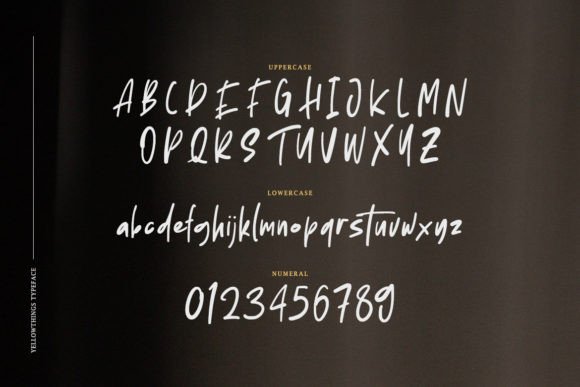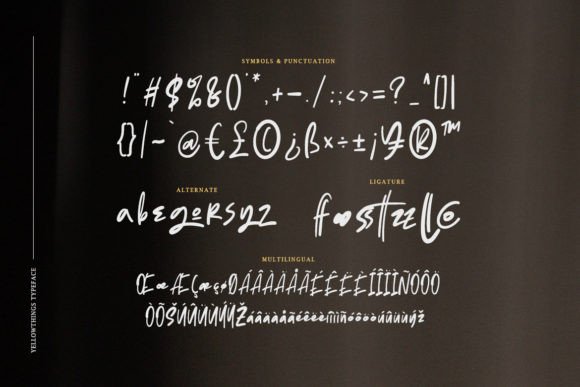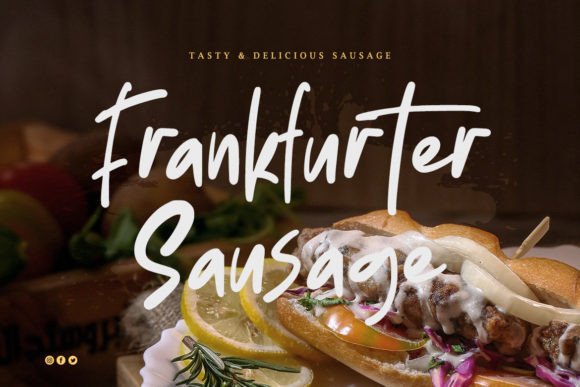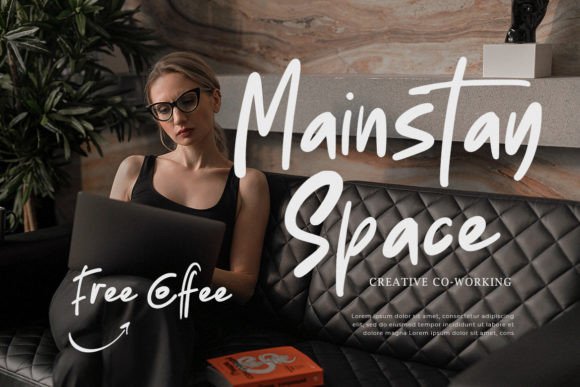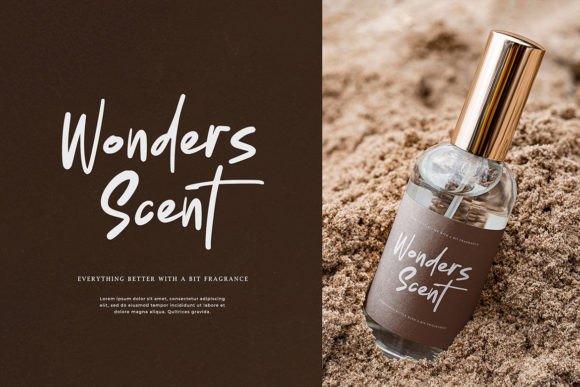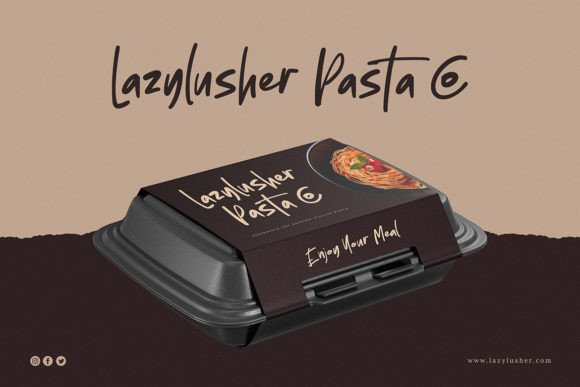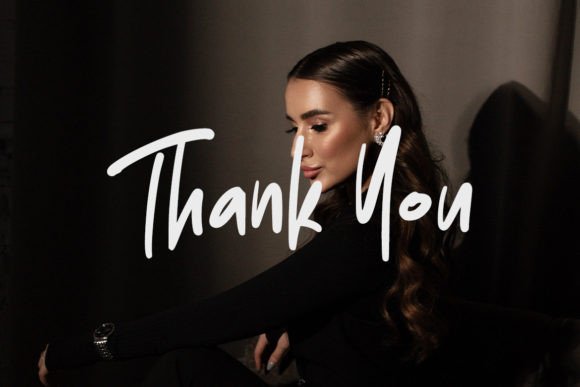
Yellowthings Font
About Yellowthings Font
“Yellowthings” is a fancy hand-drawn font, meticulously crafted to stand out as a true favorite in the world of typography. Its unique design ensures that this font will make a bold statement in any context, whether it’s placed on busy backgrounds or used as a standalone headline.
The hand-drawn nature of “Yellowthings” adds a touch of artistry and authenticity to your designs. This font is not just a typeface; it’s a creative element that brings a sense of uniqueness and character to any project it graces. Whether you’re working on posters, banners, digital graphics, or other design endeavors, “Yellowthings” promises to catch the eye and make an impact.
Its fancy and distinctive style makes it versatile for various design contexts. You can confidently use it as a headline to make a strong impression, and its handcrafted charm ensures that it stands out even on busy backgrounds. The meticulous detailing in its design makes “Yellowthings” a standout choice for those who appreciate the artistry of hand-drawn fonts.
In conclusion, “Yellowthings” is more than just a font; it’s a creative tool that adds a fancy and handcrafted flair to your designs. Whether used on busy backgrounds or as a standalone headline, let “Yellowthings” be the font that elevates your projects with its unique and eye-catching style.